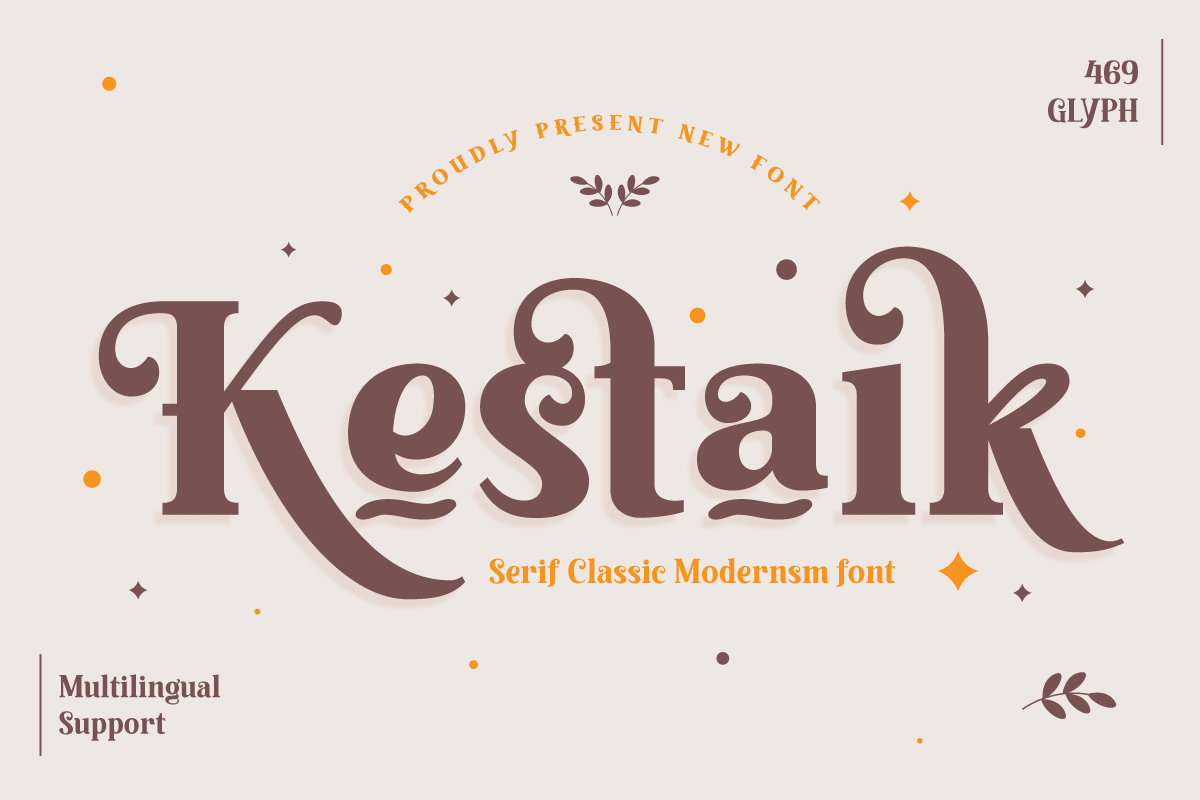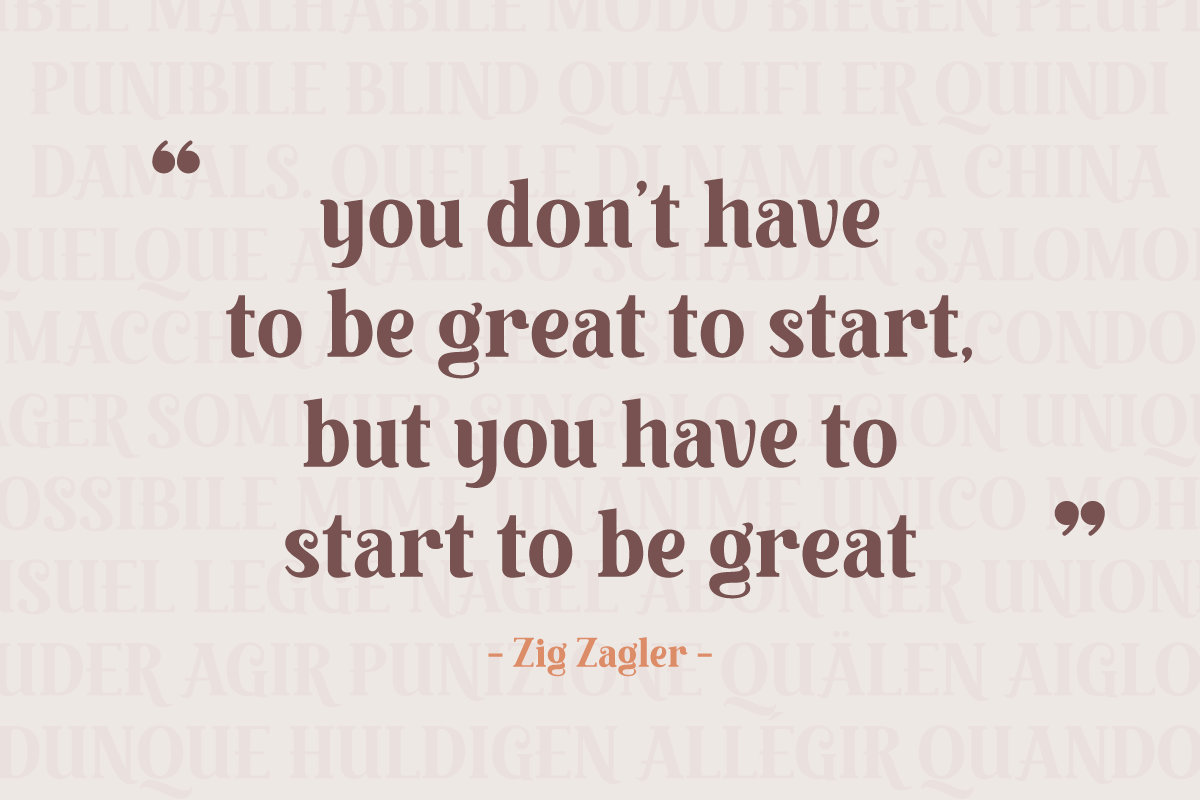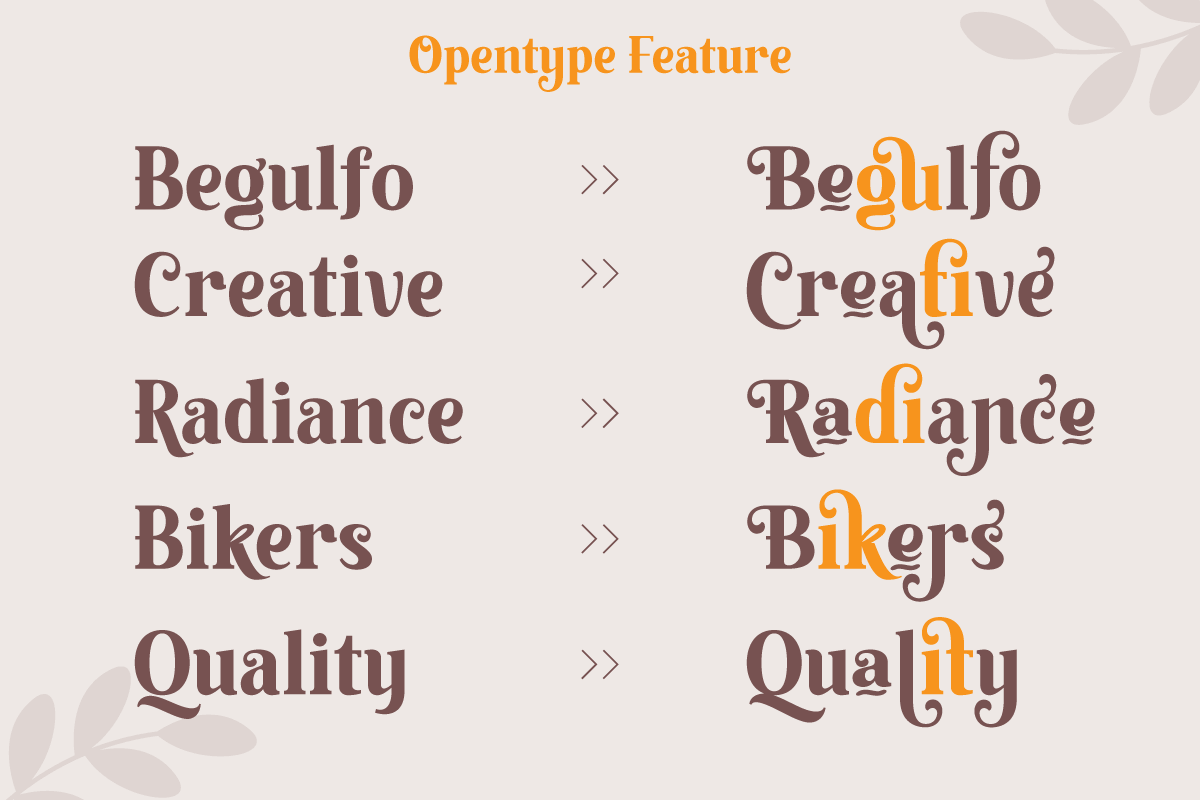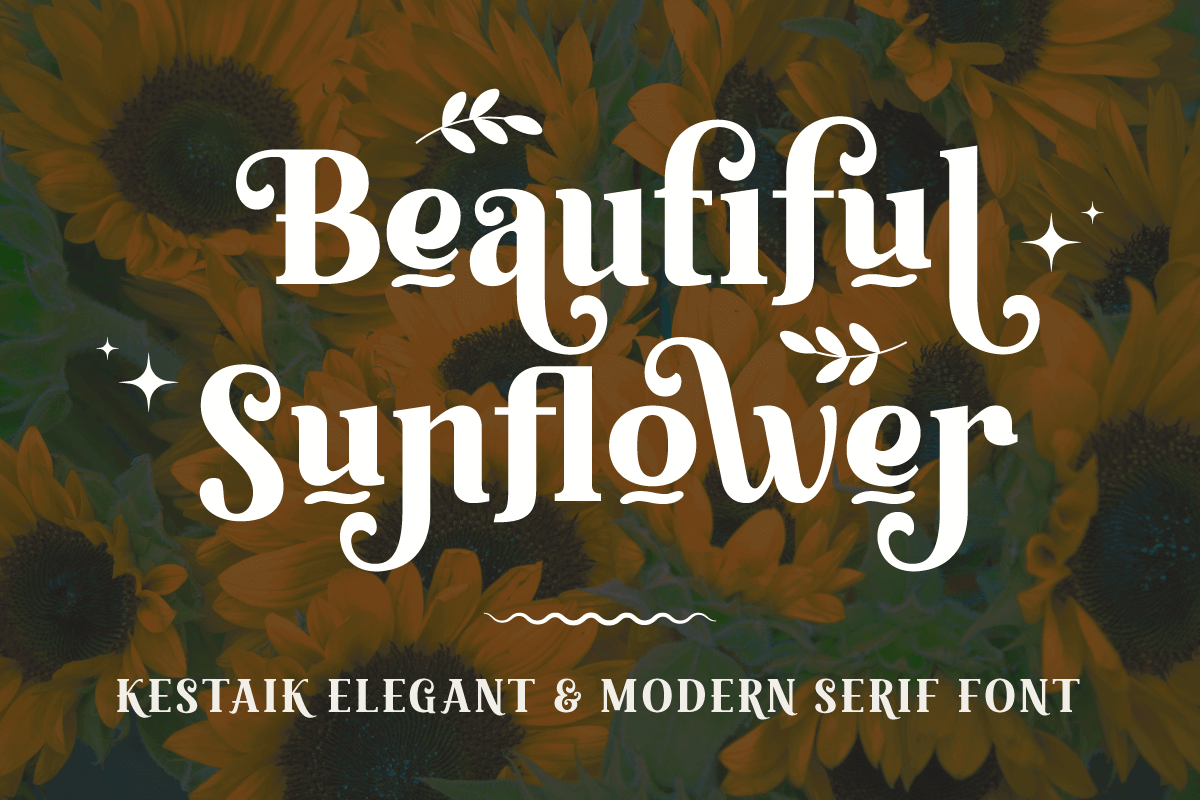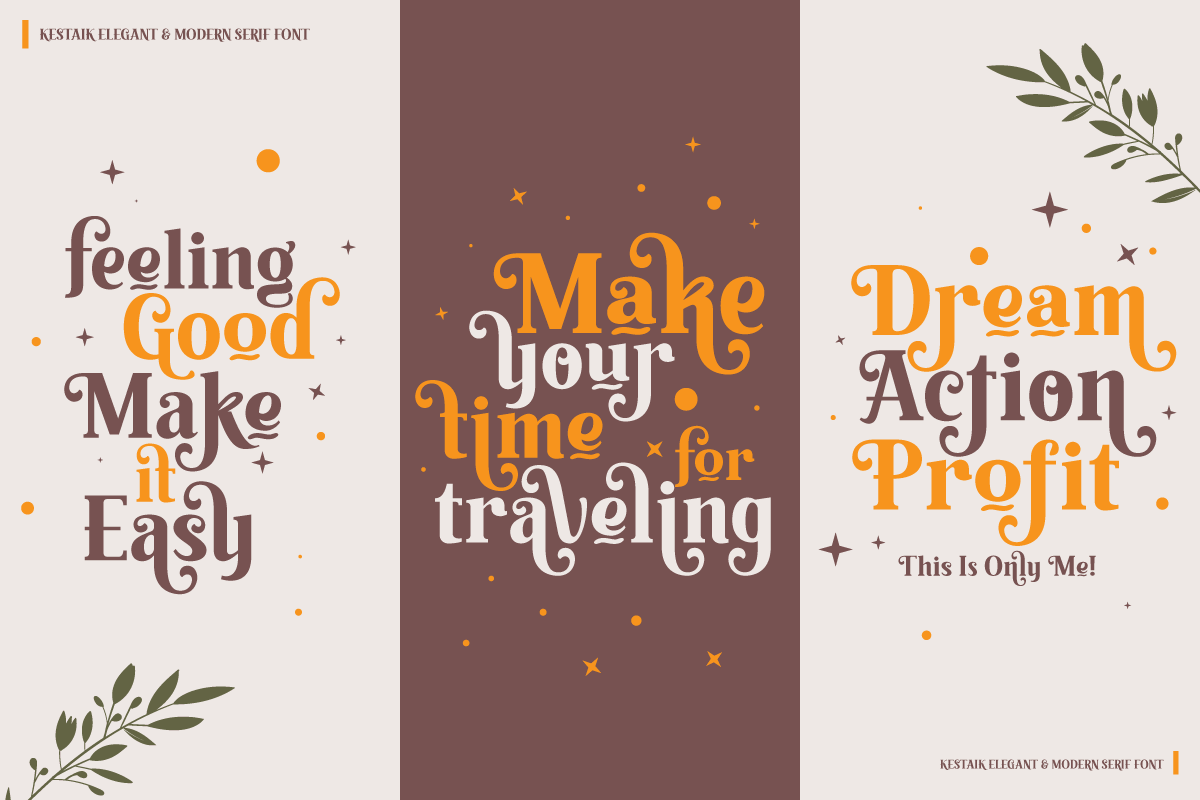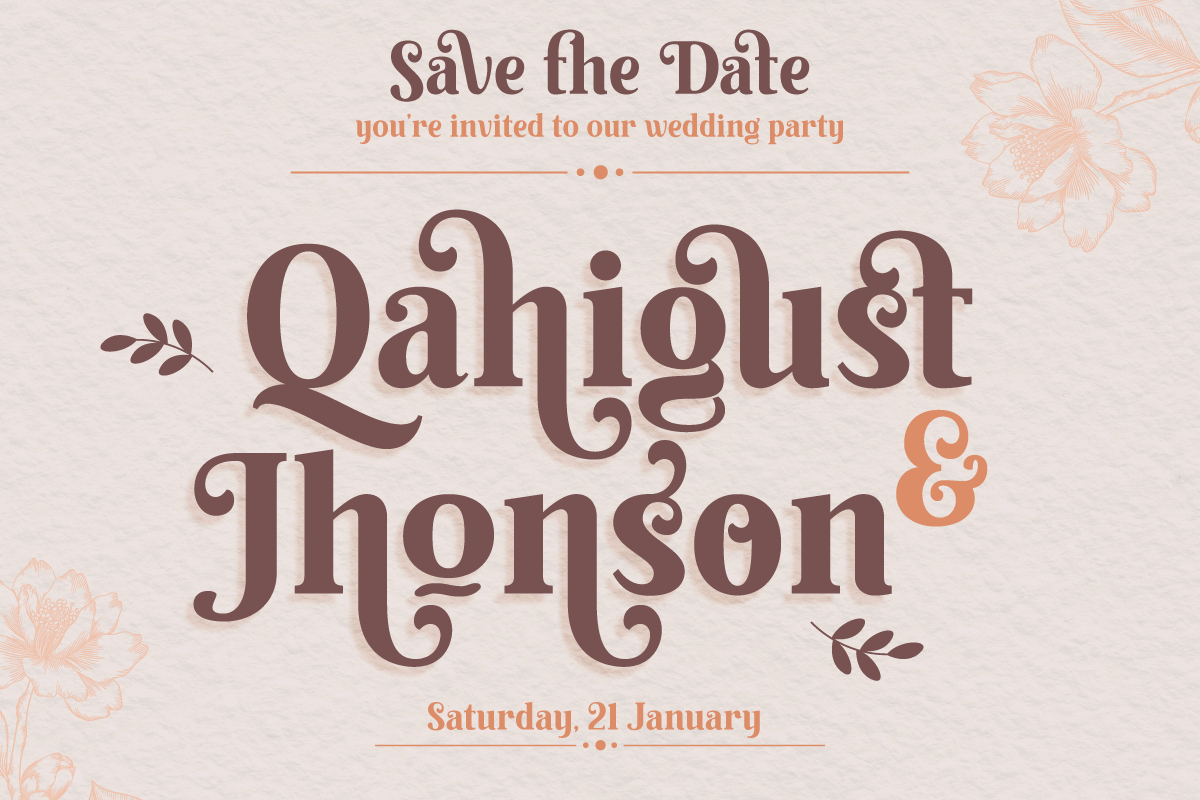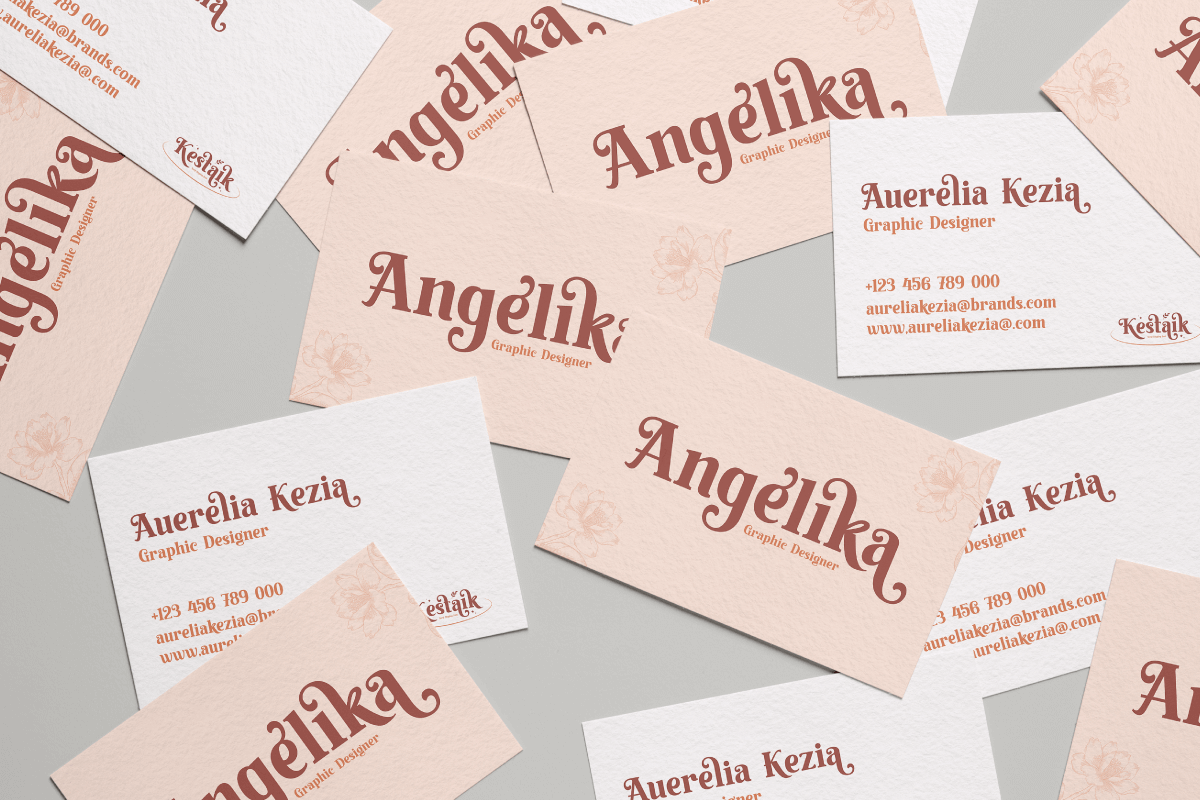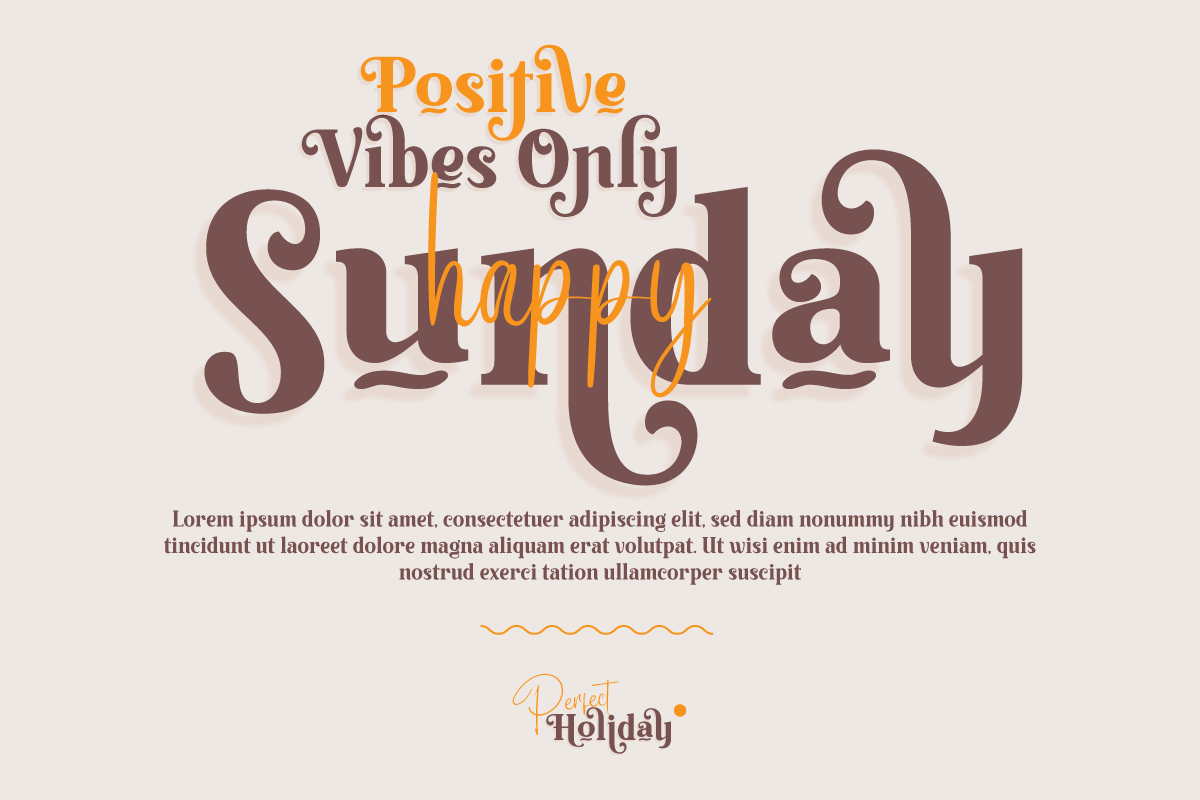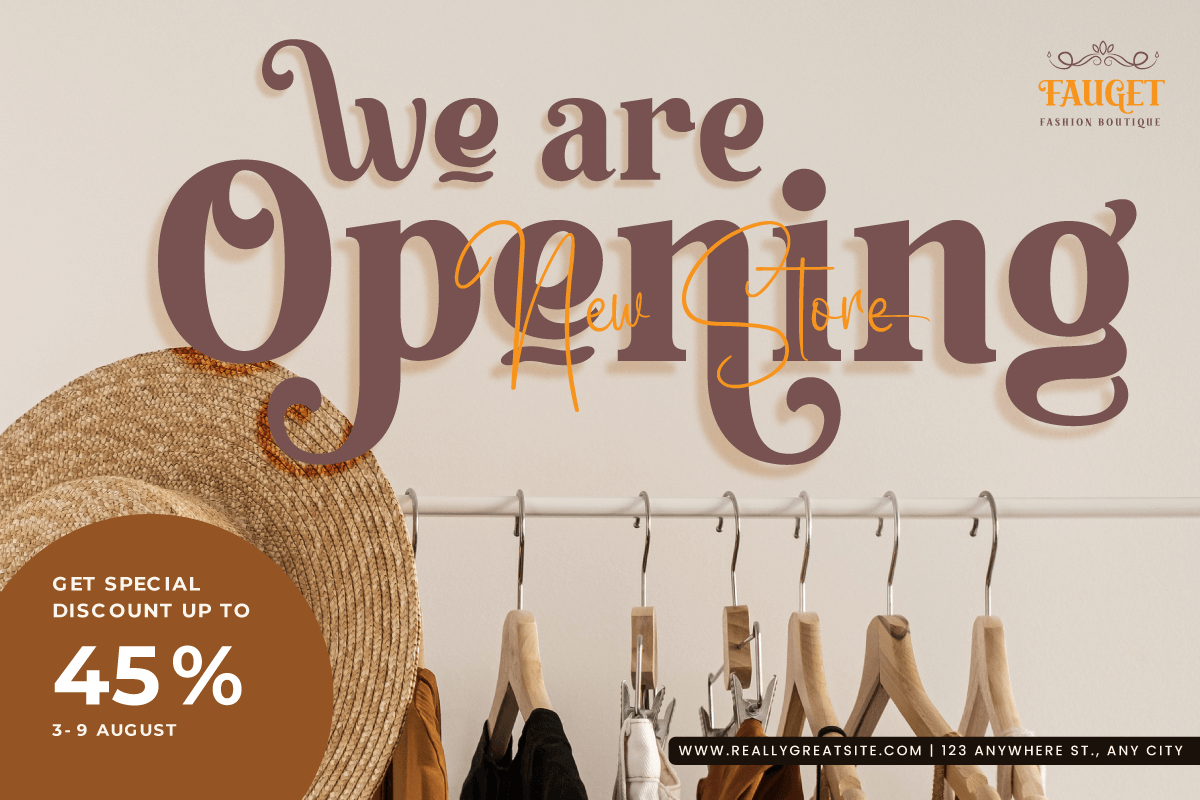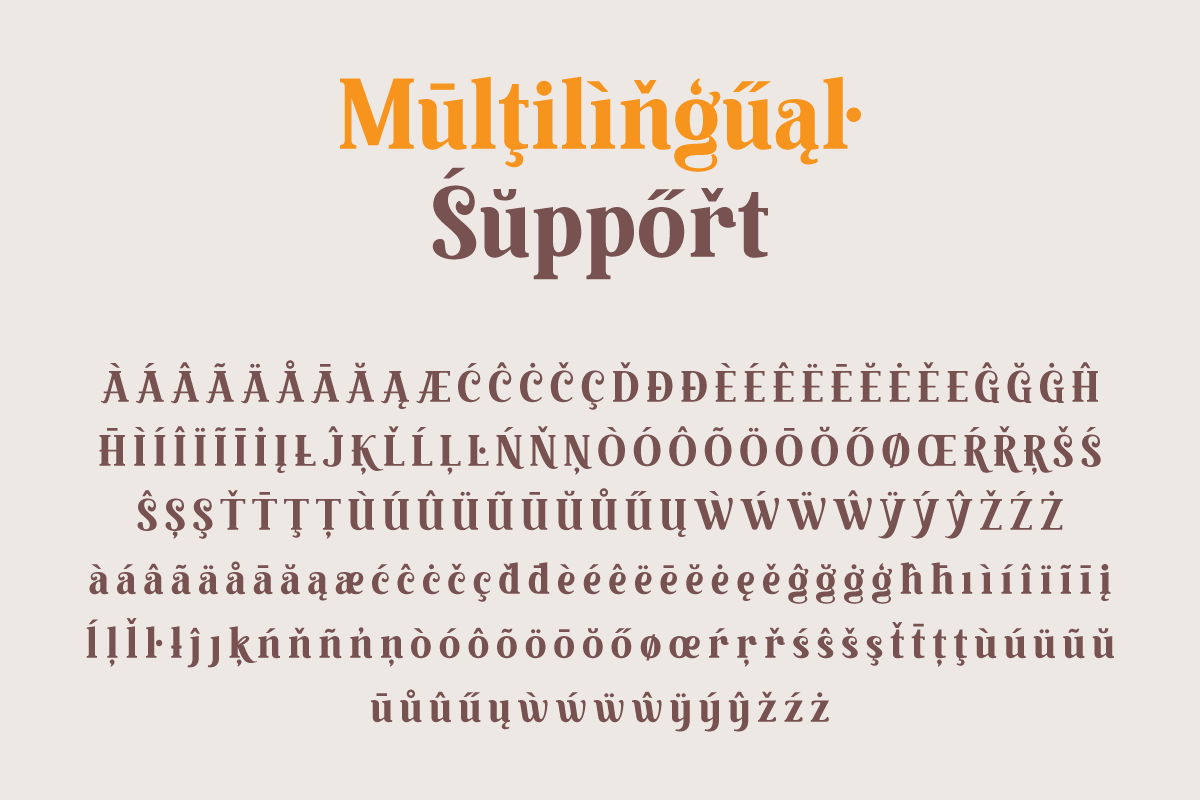
- Kestaik – Classic Serif font
Kestaik is a classic serif font that combines elegance and sophistication in its design. With its 460+ glyphs, this font offers a wide range of typographic options to suit your needs. The font features stylistic set alternate options for both uppercase and lowercase letters, adding a unique touch to your designs. Additionally, Kestaik includes several ligatures that allow for smooth letter connections and give your text a natural flow.
This font is also multilingual, supporting a variety of languages, making it versatile for various projects such as branding, editorial, and web design. Whether you’re designing a book cover, creating a logo, or designing a website, Kestaik will add a touch of classic elegance to your project.